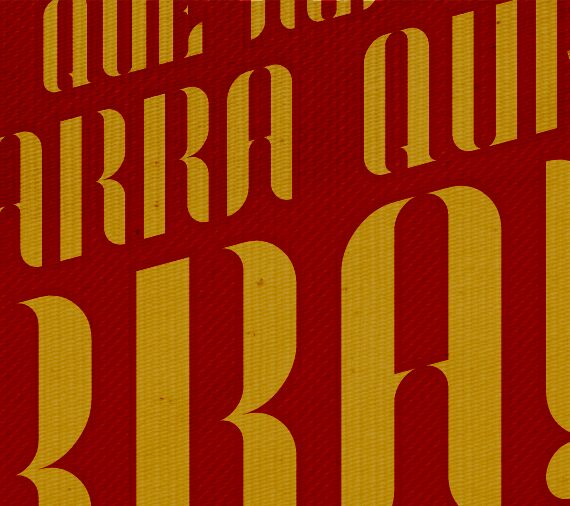
Phyllon by João Paulo Faraco is a free groovy display font with extremely tall, narrow letters, dramatic stroke contrast, and tightly drawn curves that recall fashion lettering from the late 1960s and early 1970s. Its rounded shoulders and razor-thin strokes keep the shapes fluid.
That retro fashion mood makes Phyllon a convincing choice for magazine covers, record packaging, and nightclub posters, especially in designs seeking elegant psychedelia rather than a rough counterculture look. It will appeal most to designers working with vintage fashion, glamorous music imagery, or boutique branding, since its towering silhouettes can become part of the decorative pattern rather than serving as neutral text.